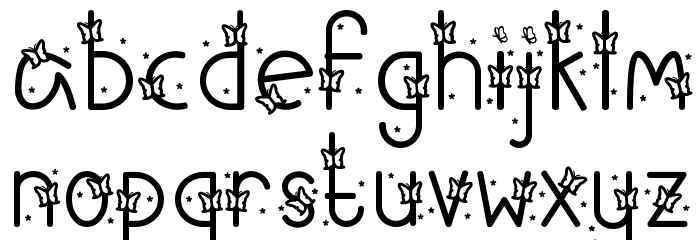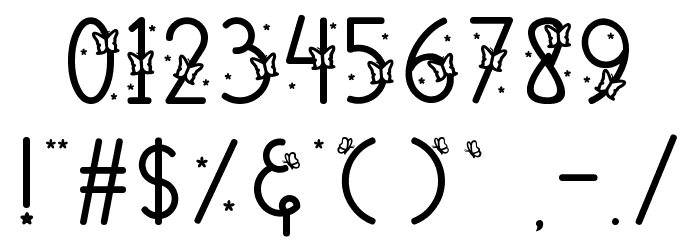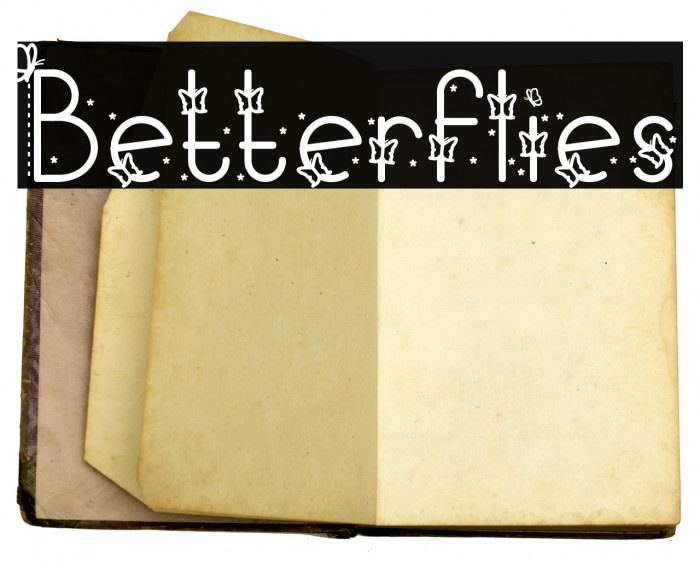
Betterflies Font
This whimsical and decorative font features playful butterfly motifs adorning each character, adding a touch of nature-inspired charm. The letters are primarily sans-serif with clean, rounded edges, and the butterflies are intricately detailed, creating a sense of movement and liveliness. The font maintains a consistent stroke width, which gives it a balanced and harmonious appearance. The inclusion of small star-like accents further enhances its enchanting and magical feel. This font is perfect for projects that require a fun and imaginative touch, such as children's books, greeting cards, or whimsical branding.
A whimsical sans-serif font adorned with butterfly motifs and star accents.
- Proposed Projects: Ideal for children's books, greeting cards, whimsical branding, and playful invitations.
- Use Case: Headlines, Logos, Decorative text